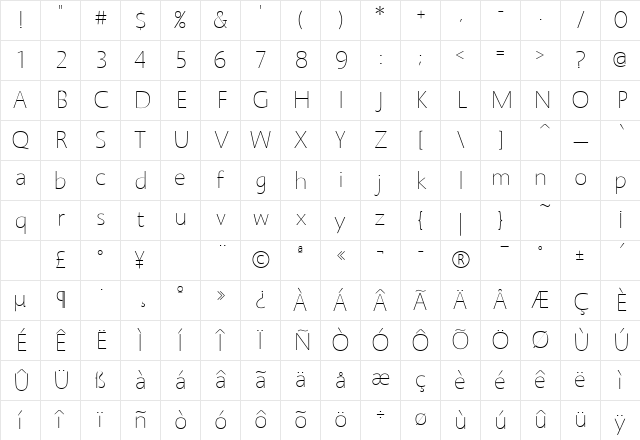
AIQuanta Thin Free Font
AIQuanta Thin
Style: Thin
Design Context for AIQuanta
AIQuanta is a composed and adaptable typeface that performs quietly and consistently across a wide range of design contexts. Its slender proportions lend an understated elegance to any composition.